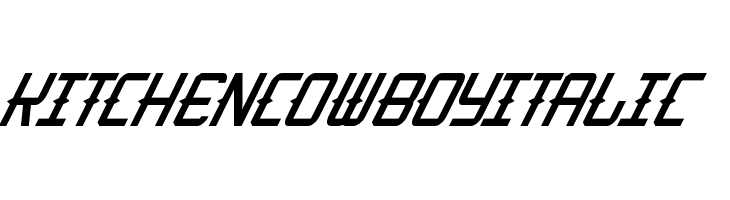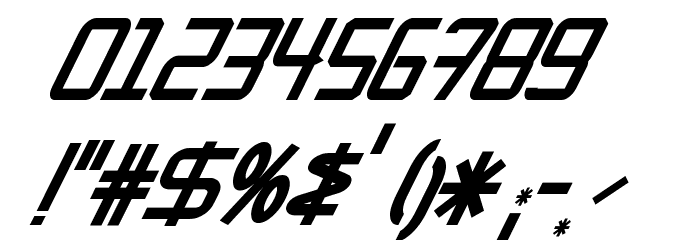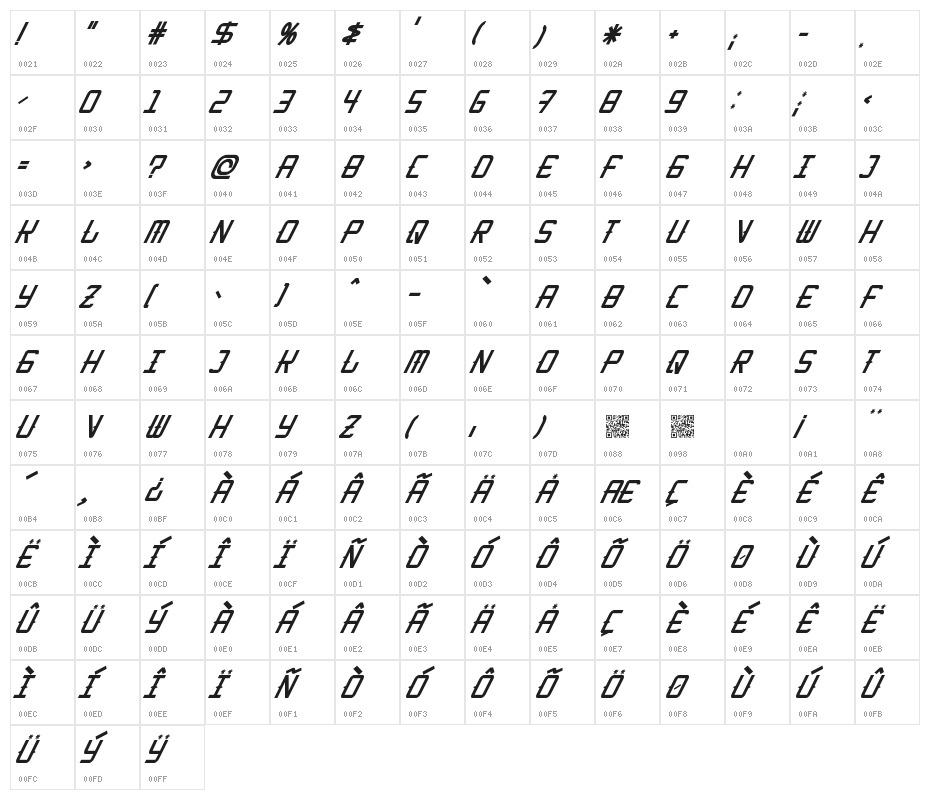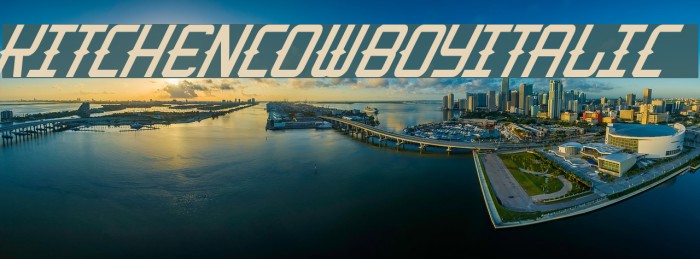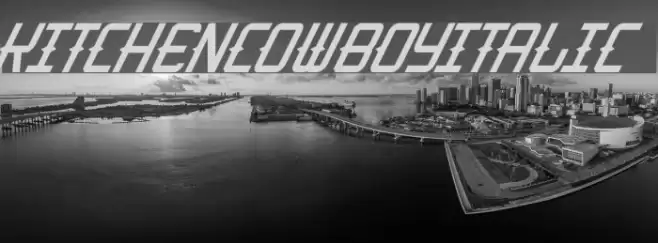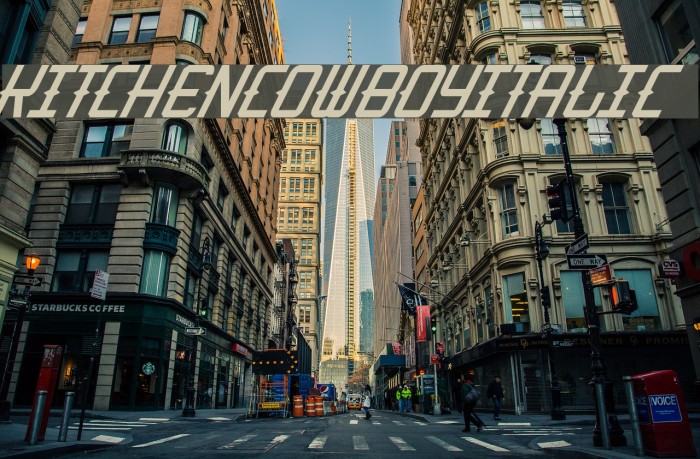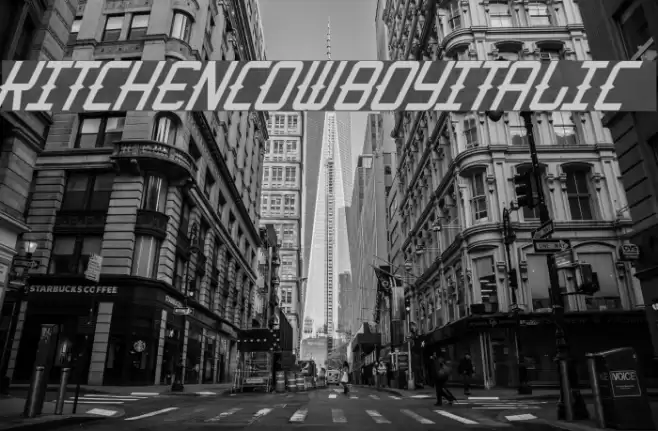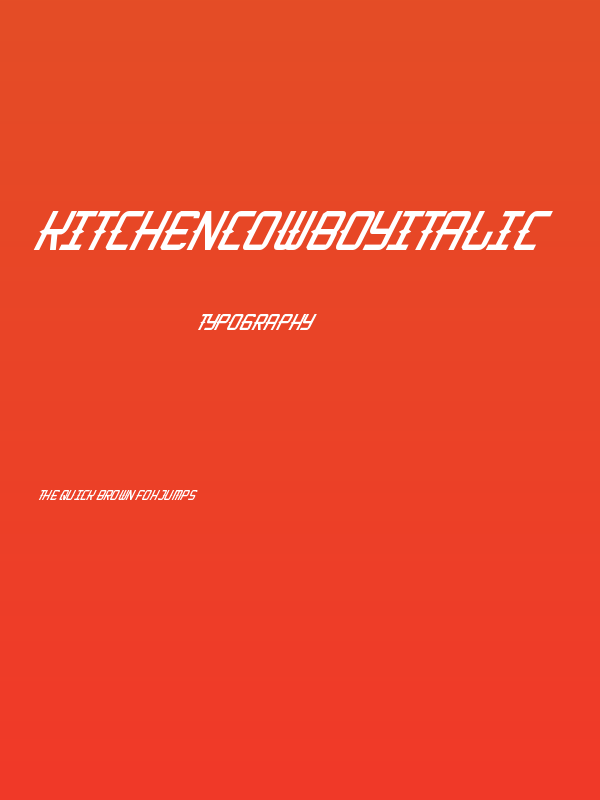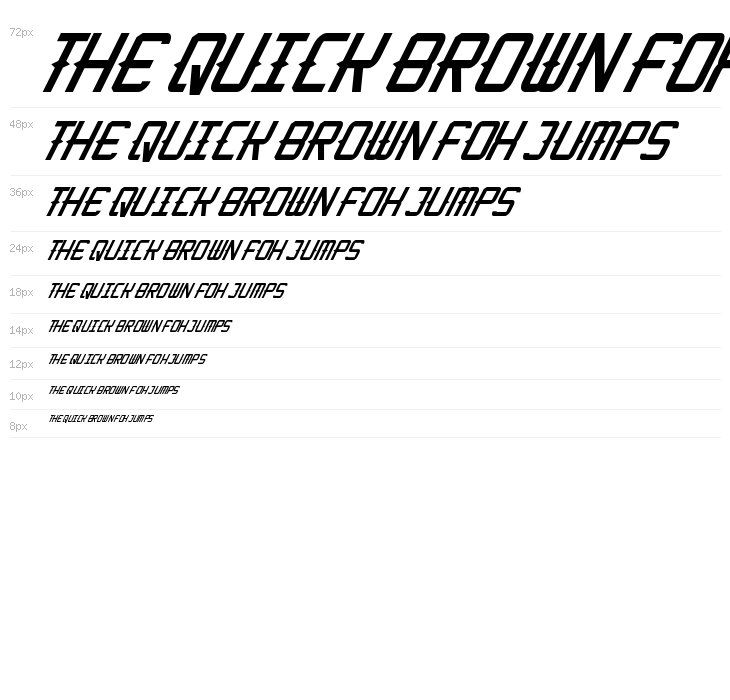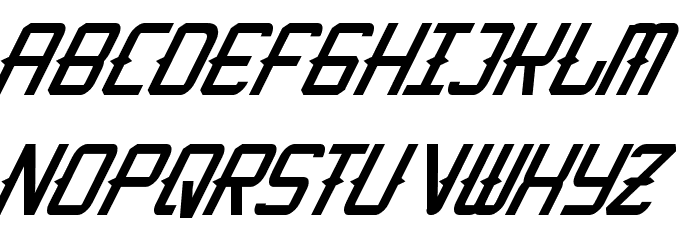
KitchenCowboyItalic Font
KitchenCowboyItalic Description
This font features a bold, italicized style with a distinctly modern and edgy appearance. The characters are elongated and slightly condensed, giving a sleek and streamlined look. The angular design of the letters adds a dynamic and energetic feel, making it suitable for attention-grabbing headlines. The uppercase and lowercase letters maintain a consistent style, with a uniform stroke width that provides a balanced appearance. The numbers and special characters are designed to match the overall aesthetic, ensuring a cohesive look across all text elements.